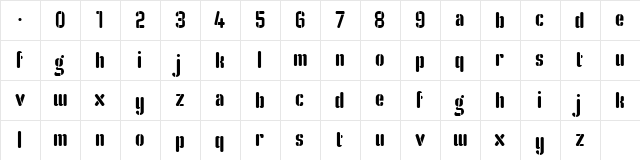
Wild Cat Stencil Regular
| Foundry | Charlie S. Romeo |
Design Context for Wild Cat Stencil Typeface
Wild Cat Stencil has the rough pragmatism of spray-painted stencil signage, adding a raw, street-level authenticity to designs.
A strong choice for packaging that needs edge, warehouse aesthetics, and rough-and-ready visual identities.
Pro Tip: Use Wild Cat Stencil at large sizes on packaging, posters, or apparel where the stencil cutaways read clearly. Avoid small sizes where those gaps become visual noise.